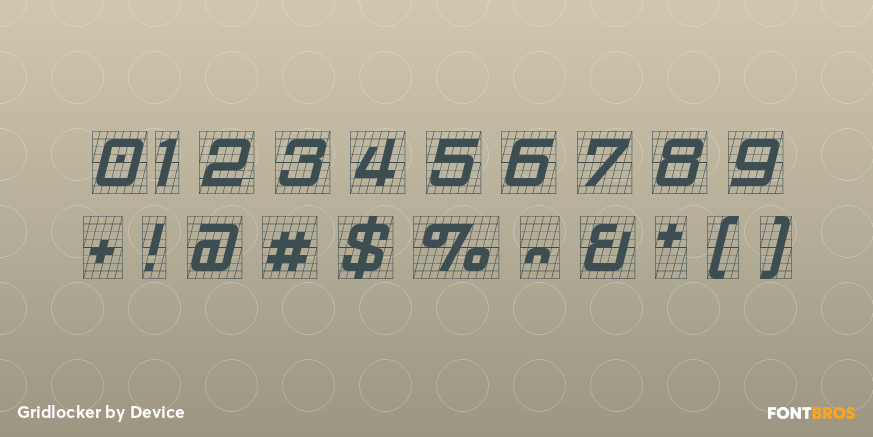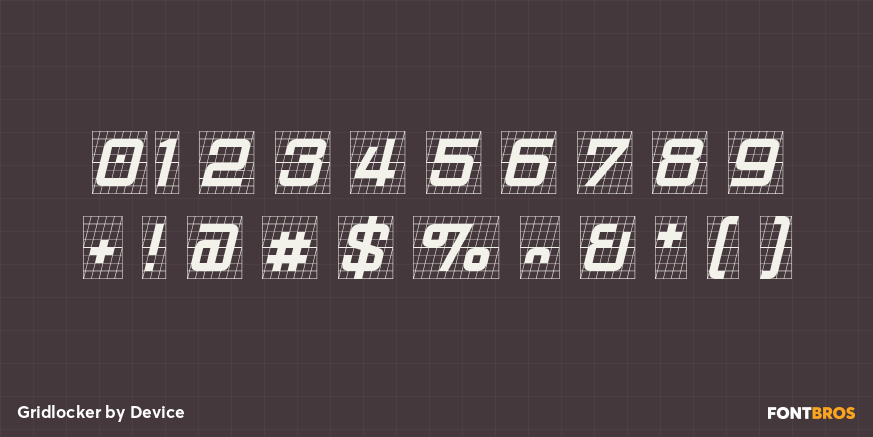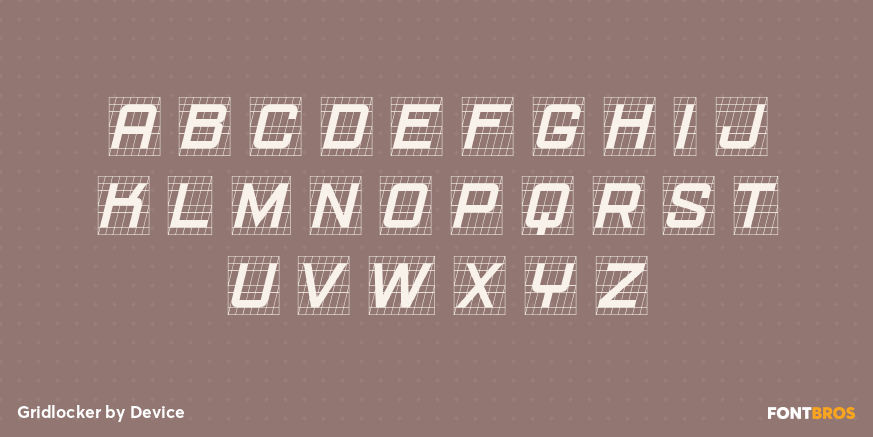
Gridlocker
Font Family by Device
An isometric grid of a font, Gridlock takes an italicised modular approach to its letterforms.
It is, however, not willfully strict about the application of that grid - the W and V and S, for example, have carefully considered diagonals that freely intersect the layout.
More strictly designed but possibly less attractive versions are available as alternate characters.